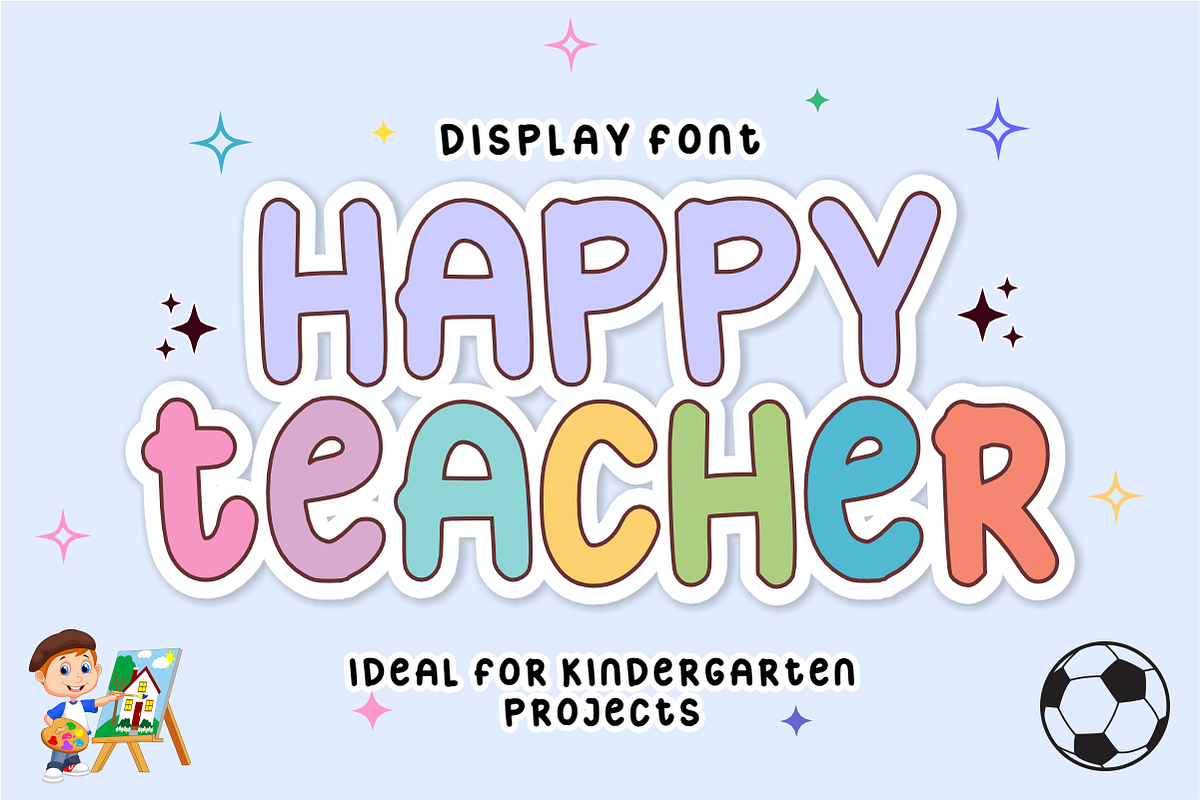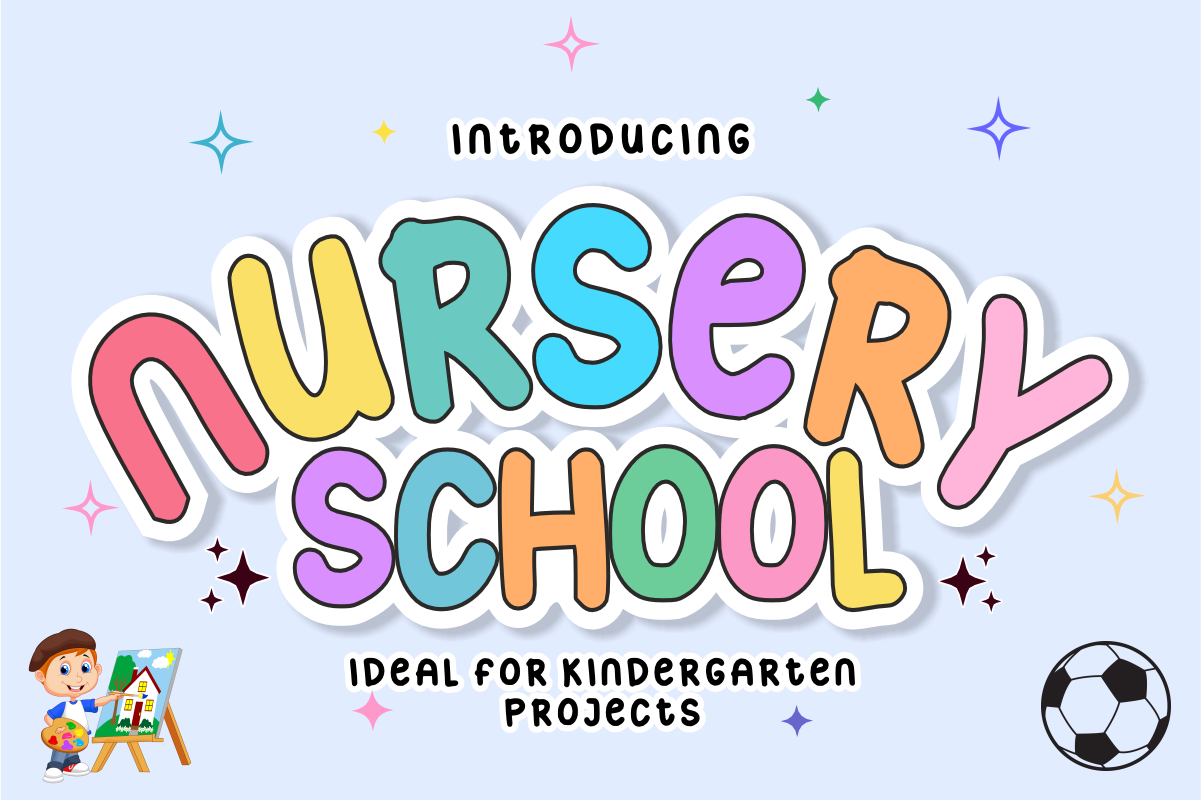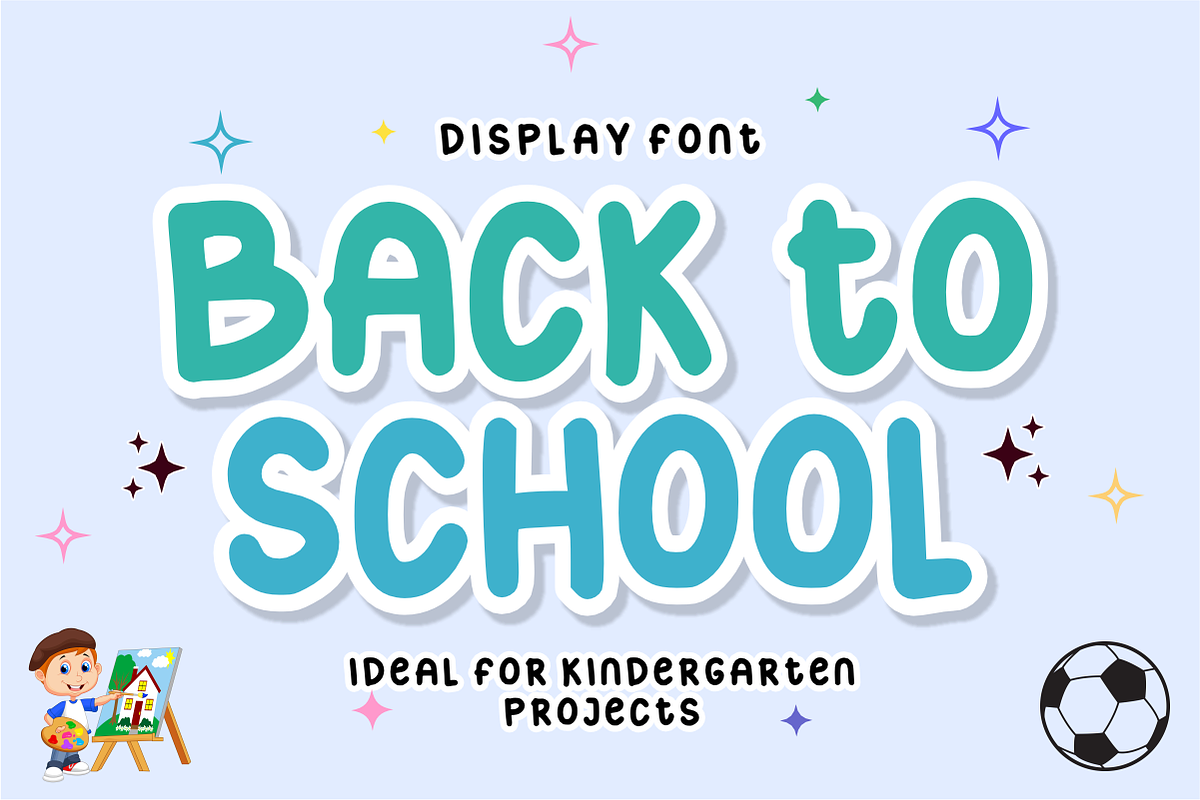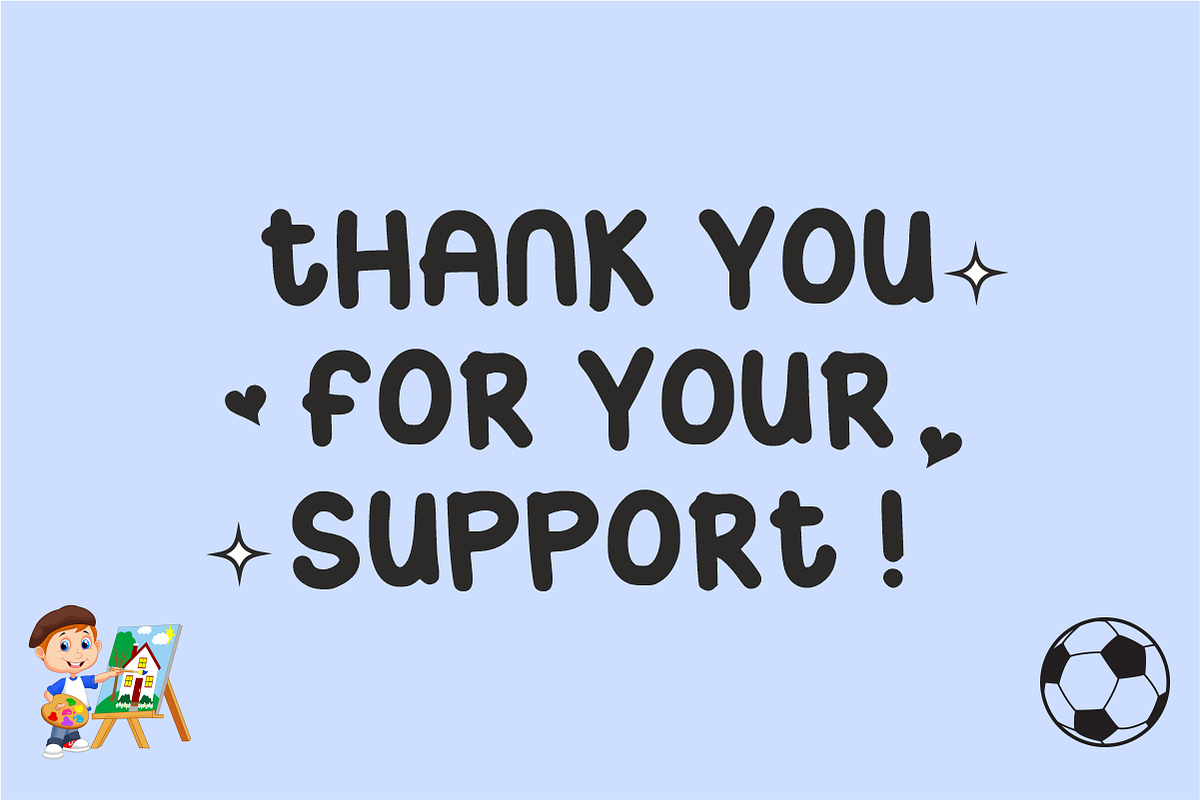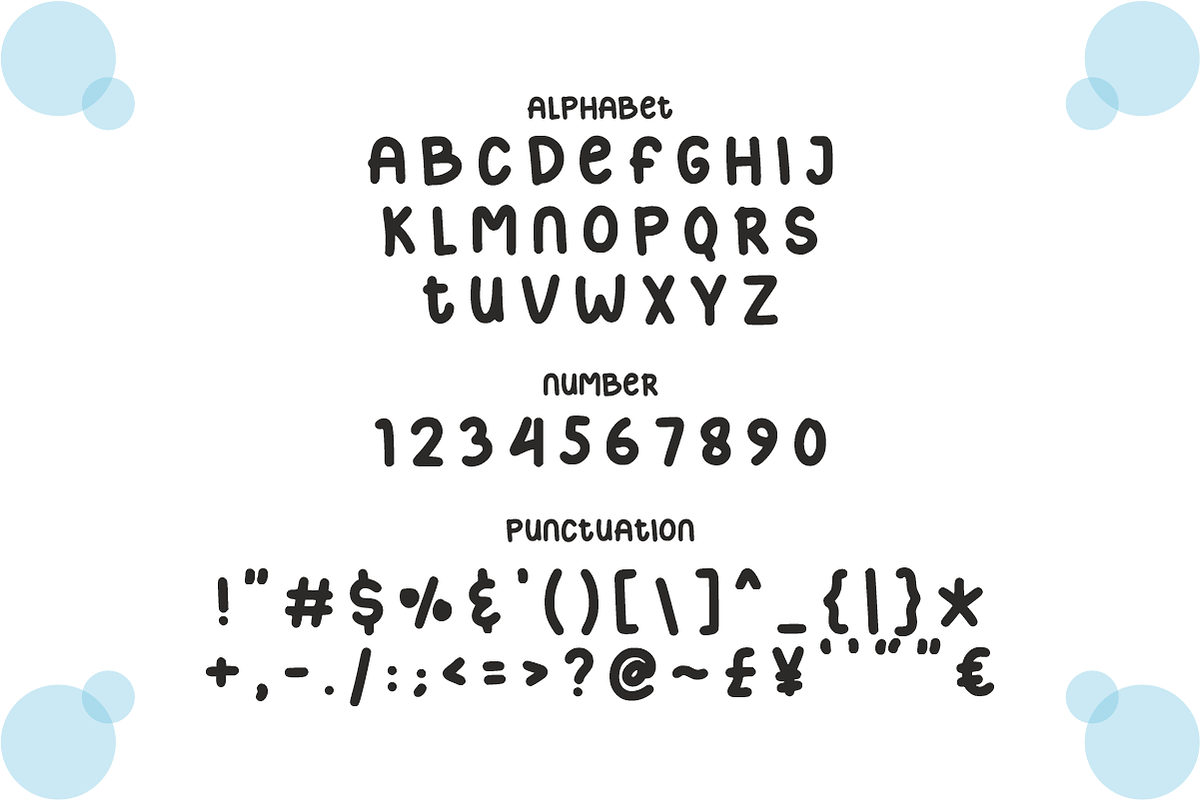
Nursery School - Bubbly Display Font
Nursery School - Playful Bubbly Display Font
Capture the joyful essence of childhood creativity with Nursery School! This chunky, bubbly display font features soft, rounded outlines and an organic, hand-drawn bounce that brings instant warmth and an inviting vibe to any layout.
Engineered specifically for the juvenile market, creative branding, and playful editorial designs, Nursery School turns standard headlines into eye-catching focal points. It is highly legible, visually charming, and fully optimized for seamless integration across professional digital and print media workflows.
All-Caps Character Set (Chunky, rounded uppercase letters with a playful bounce)
Numbers & Basic Punctuation (Essential, simple symbols included)
Kindergarten Branding & Daycare Identity Projects 🏫
Children's Product Packaging & Toy Label Design 🧸
Kids' Book Covers & Educational Editorial Layouts 📚
Social Media Marketing & Whimsical Visual Content 📱
Youth Apparel, Merchandising, & Creative Logo Design 👕